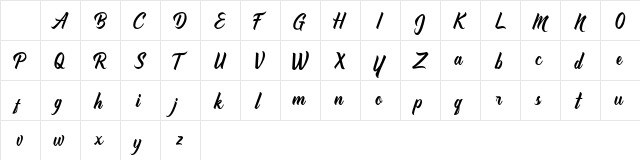
Complete Griseldya Regular glyph index. Displaying only characters natively supported by Griseldya Regular font.
Griseldya is a composed and adaptable typeface that performs quietly and consistently across a wide range of design contexts.
Pro Tip: Use Griseldya in both headline and body roles to test its range before committing to a single application.